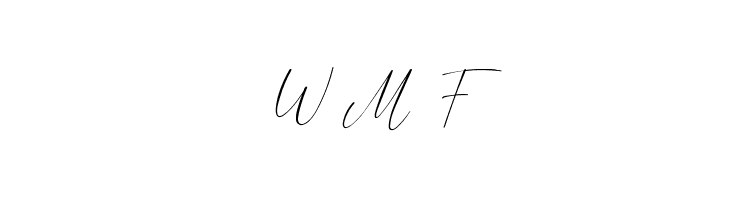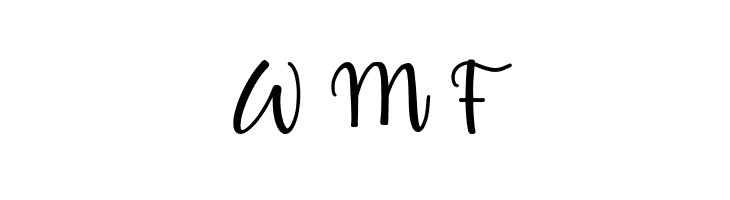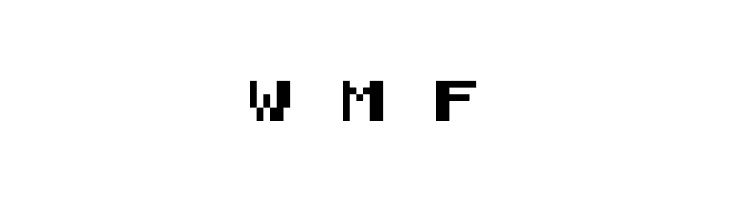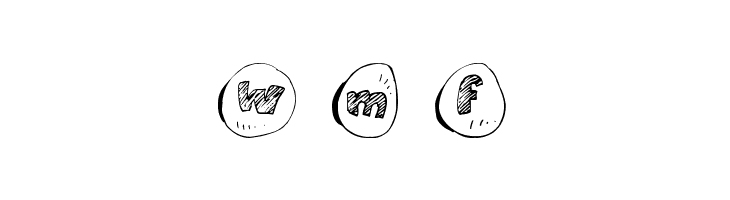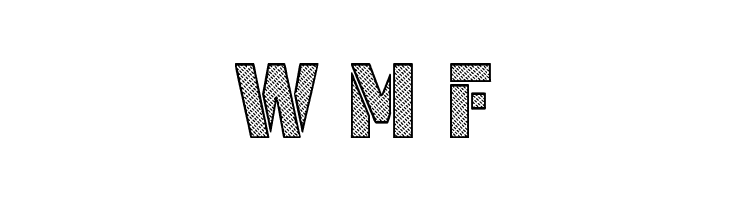
A playful, hand-drawn font with characters in pebble-like shapes.
A lively and flowing script font with elegant curves and smooth connections.
A bold, decorative font with intricate details and high contrast.
A bold, decorative font with ornate flourishes and a vintage style.
A dynamic, cursive handwritten font with fluid strokes and a slanted style.
A graceful and flowing script font with elegant, fluid letterforms.
A graceful script font with flowing, connected letters and elegant flourishes.
An artistic script font with elongated, flowing strokes and a handwritten appearance.
A pixelated, blocky font with a retro digital aesthetic.
A bold, decorative font with a unique crosshatch pattern and geometric structure.